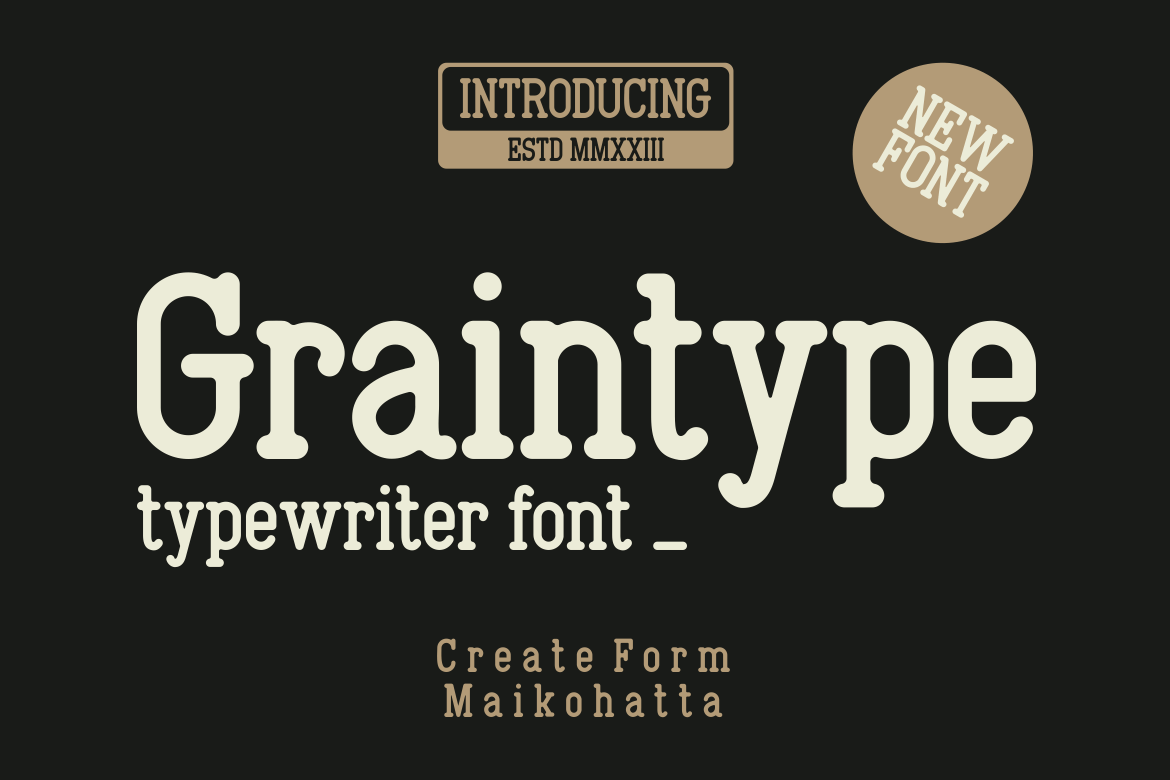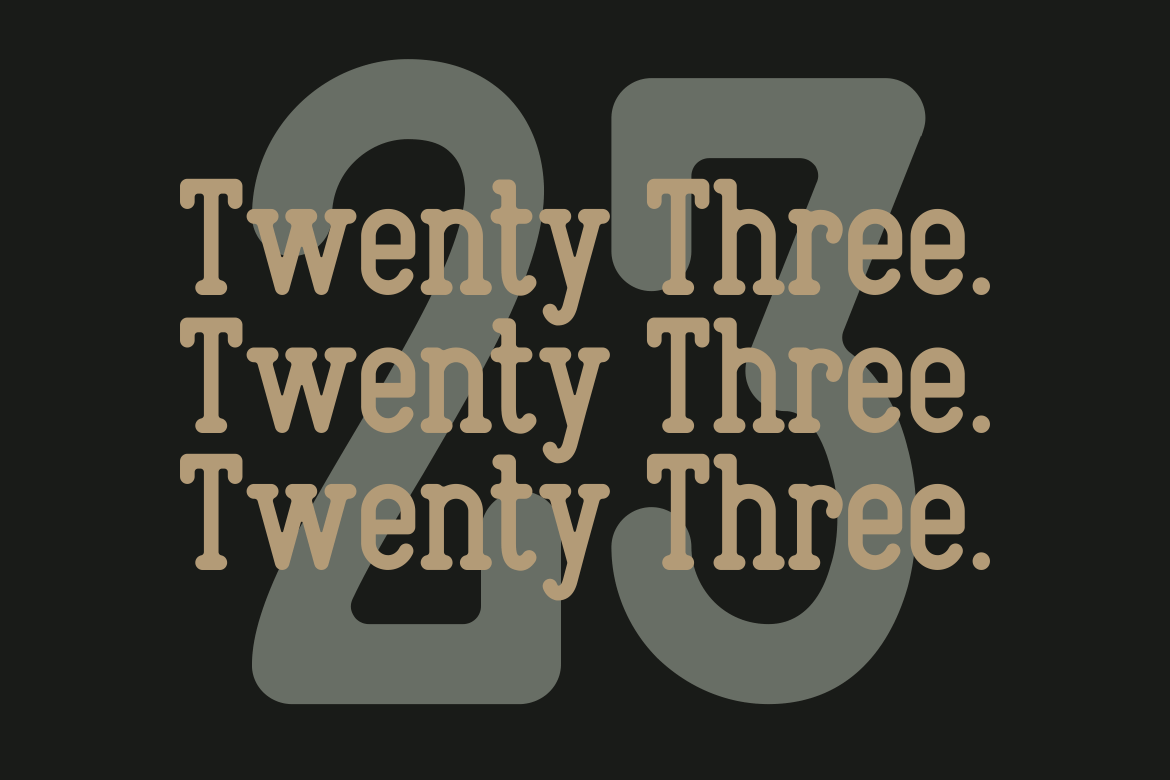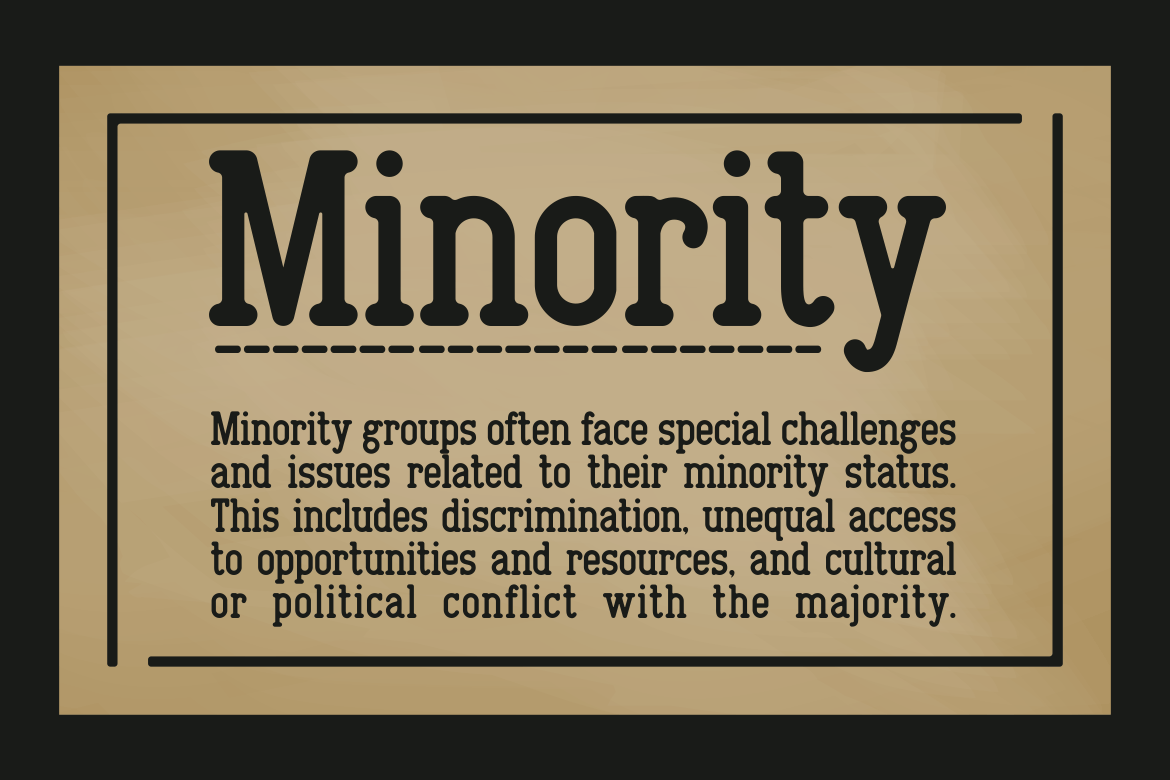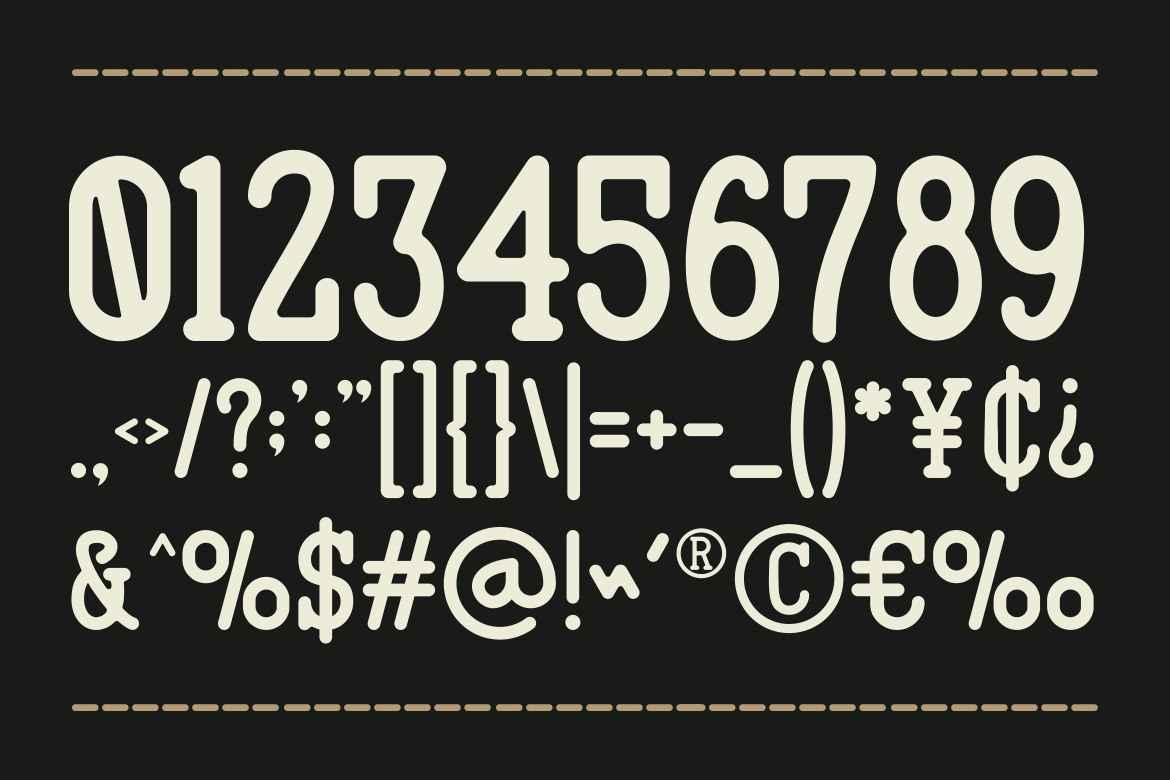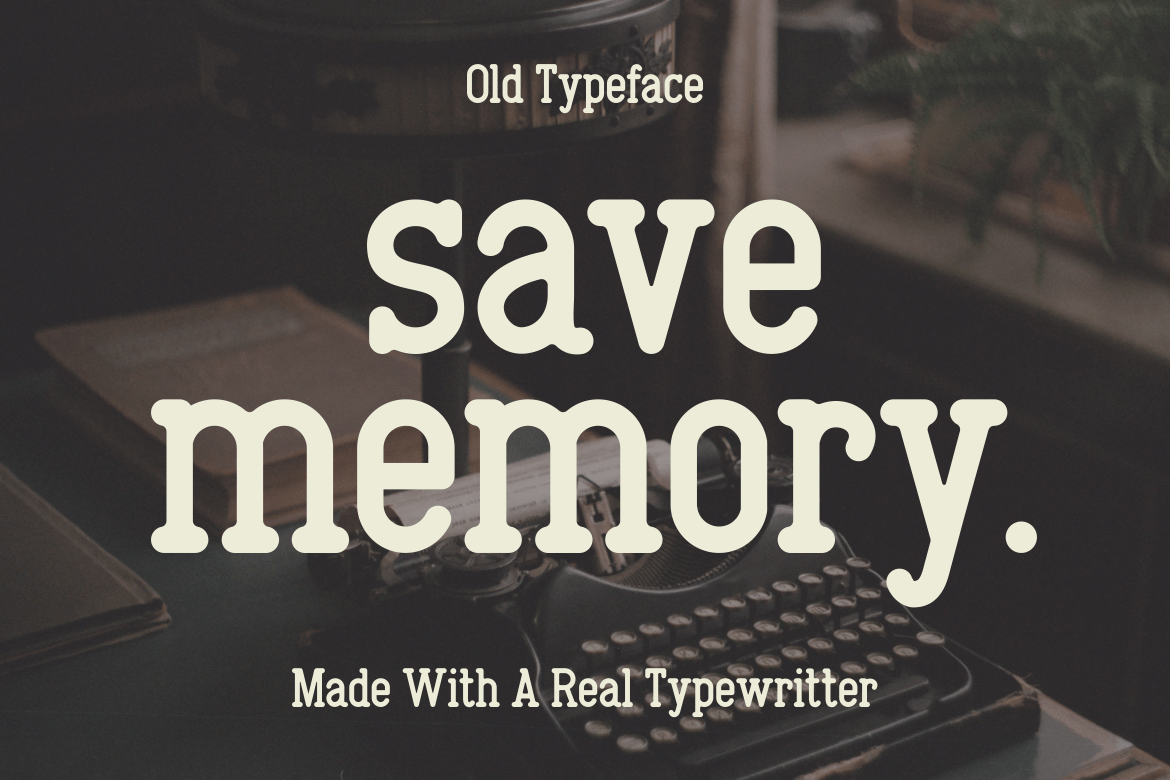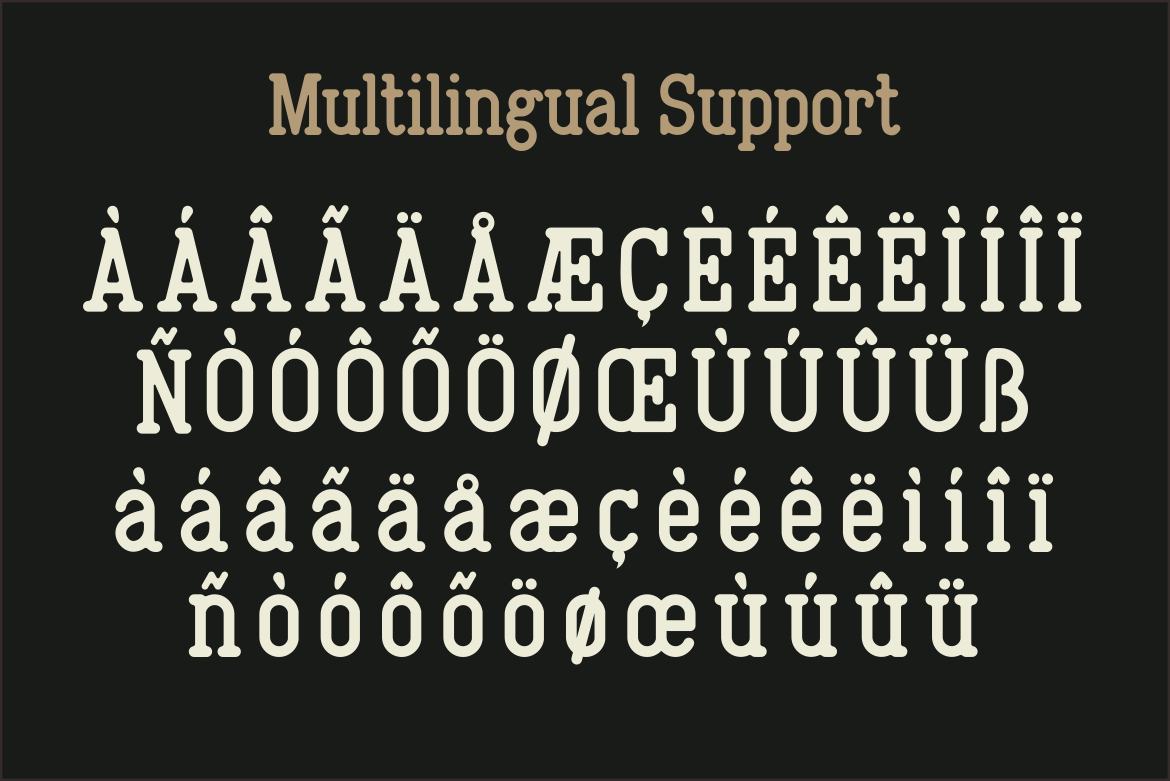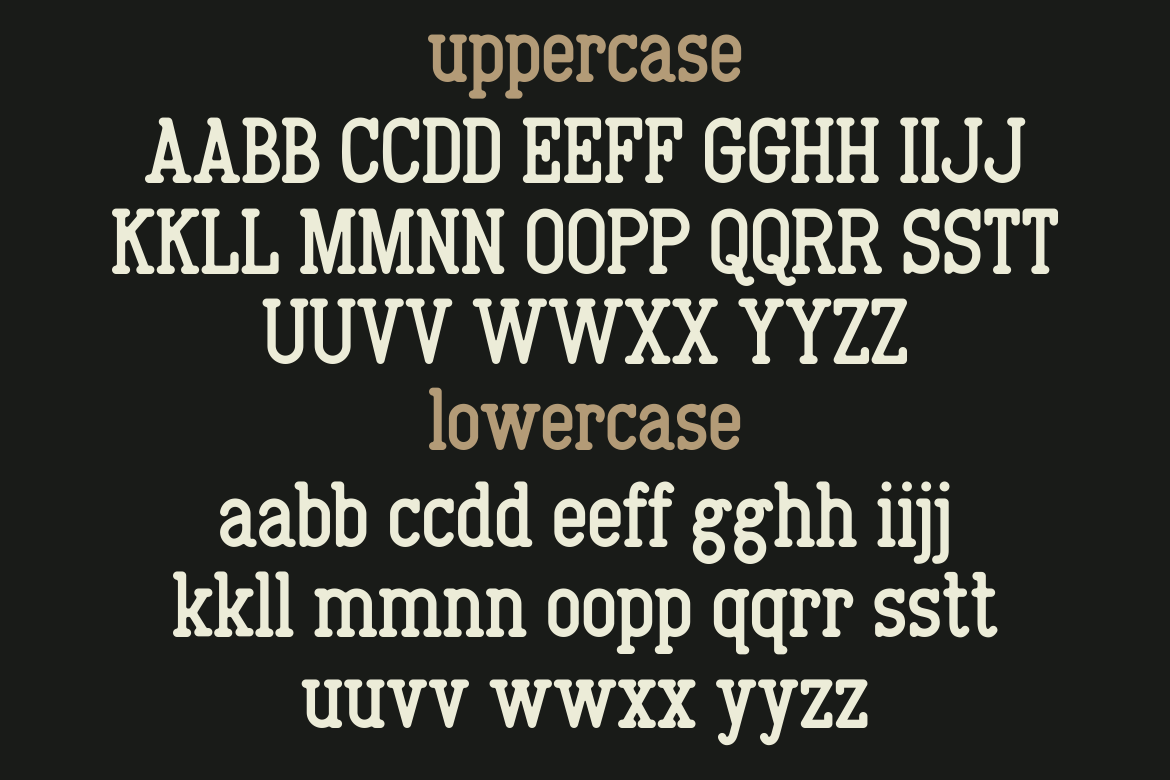
Graintype – Typewriter Font
Introducing our new product Graintype – Typewriter Font
This font combines traditional serif elements with the aesthetics of a typewriter, creating a captivating font that imparts a classic feel to any design it’s used in. It produces a unique appearance and is often employed to achieve a retro or vintage impression.